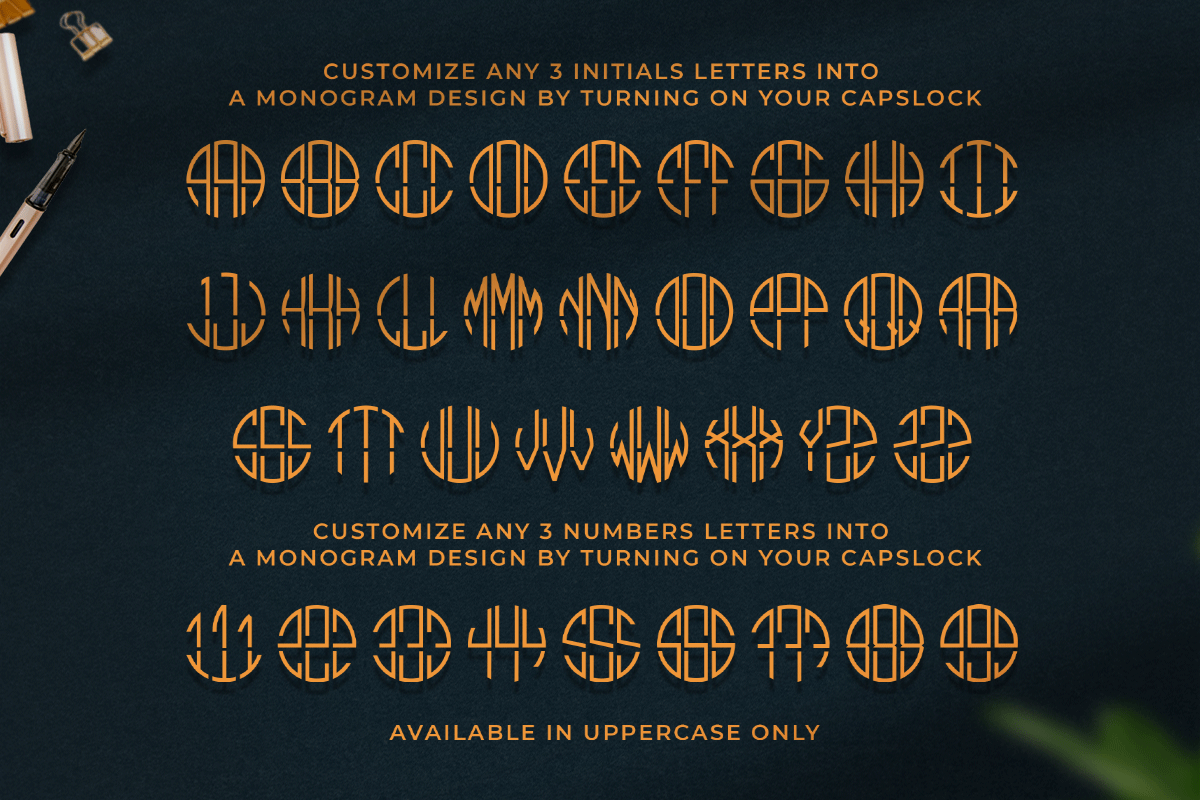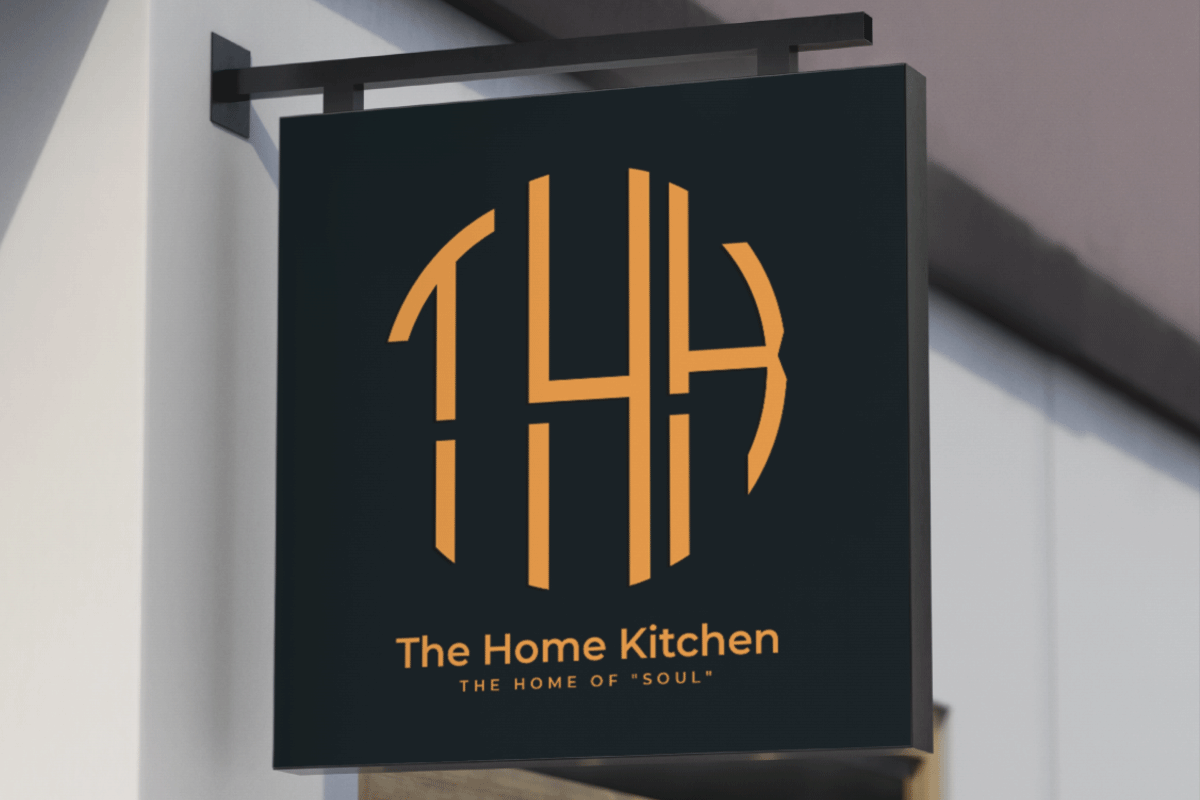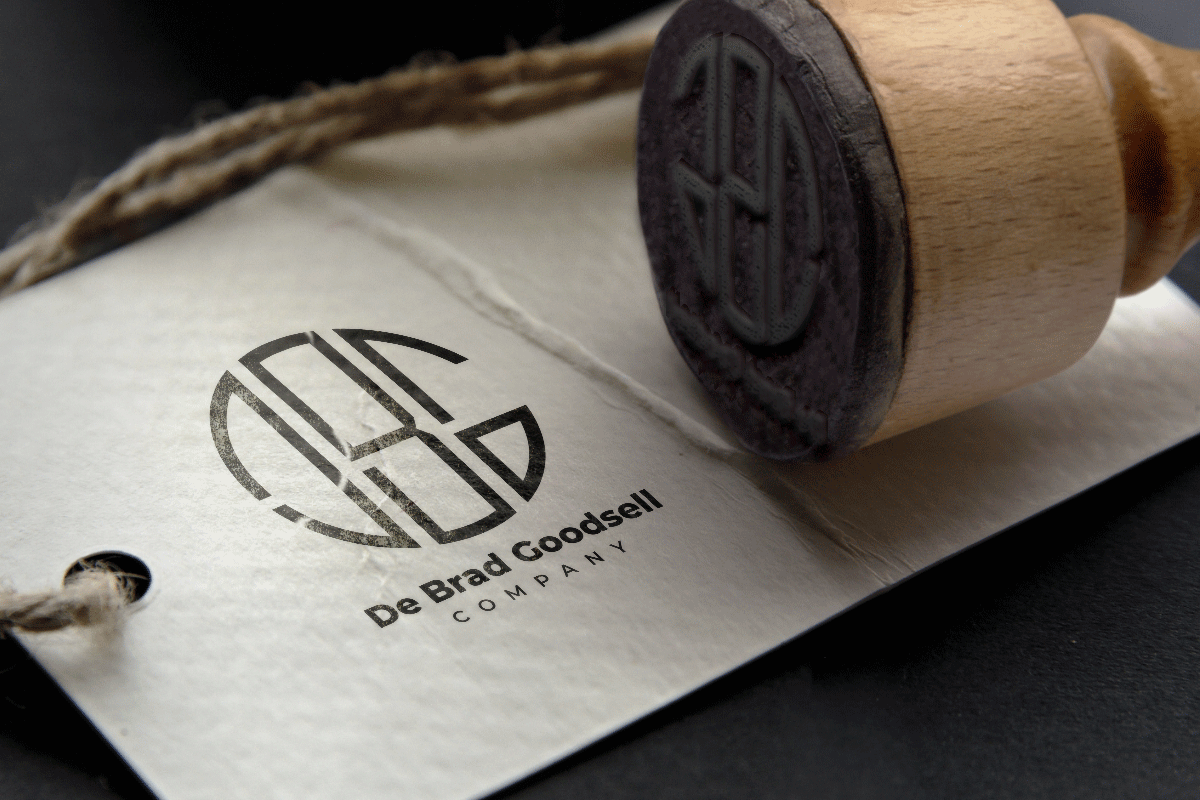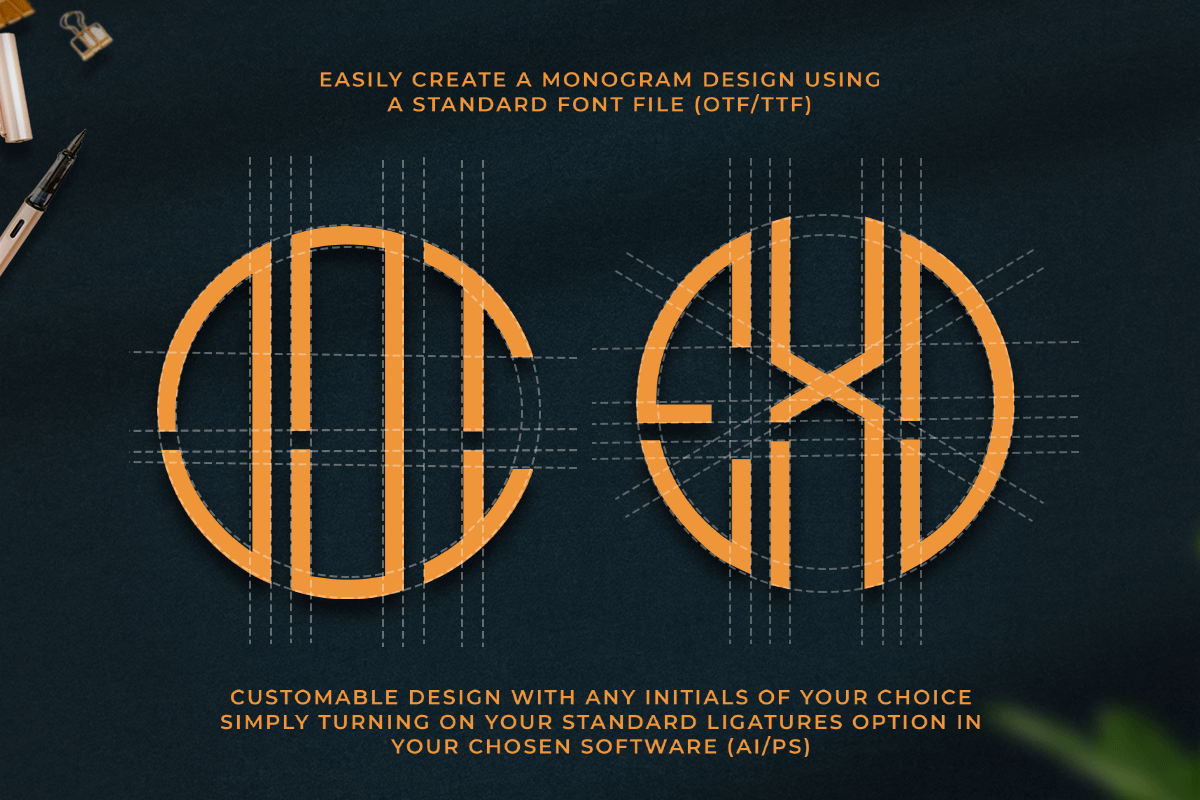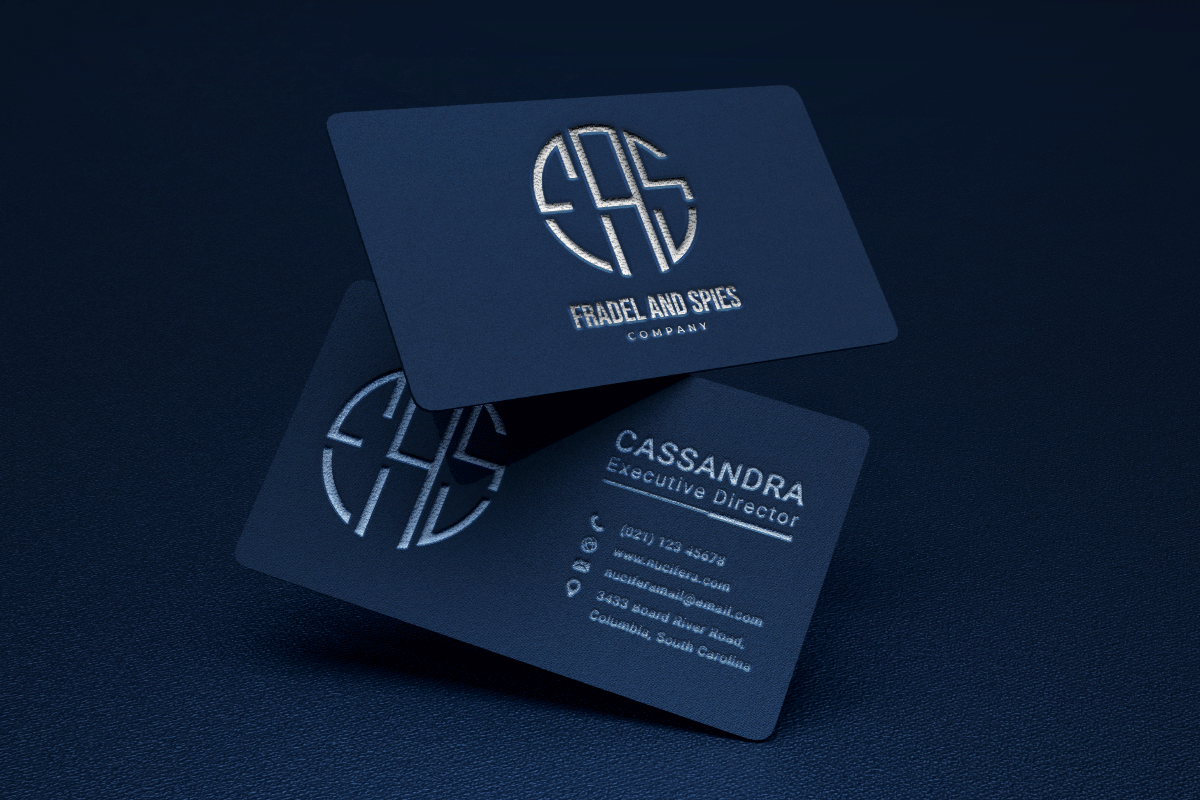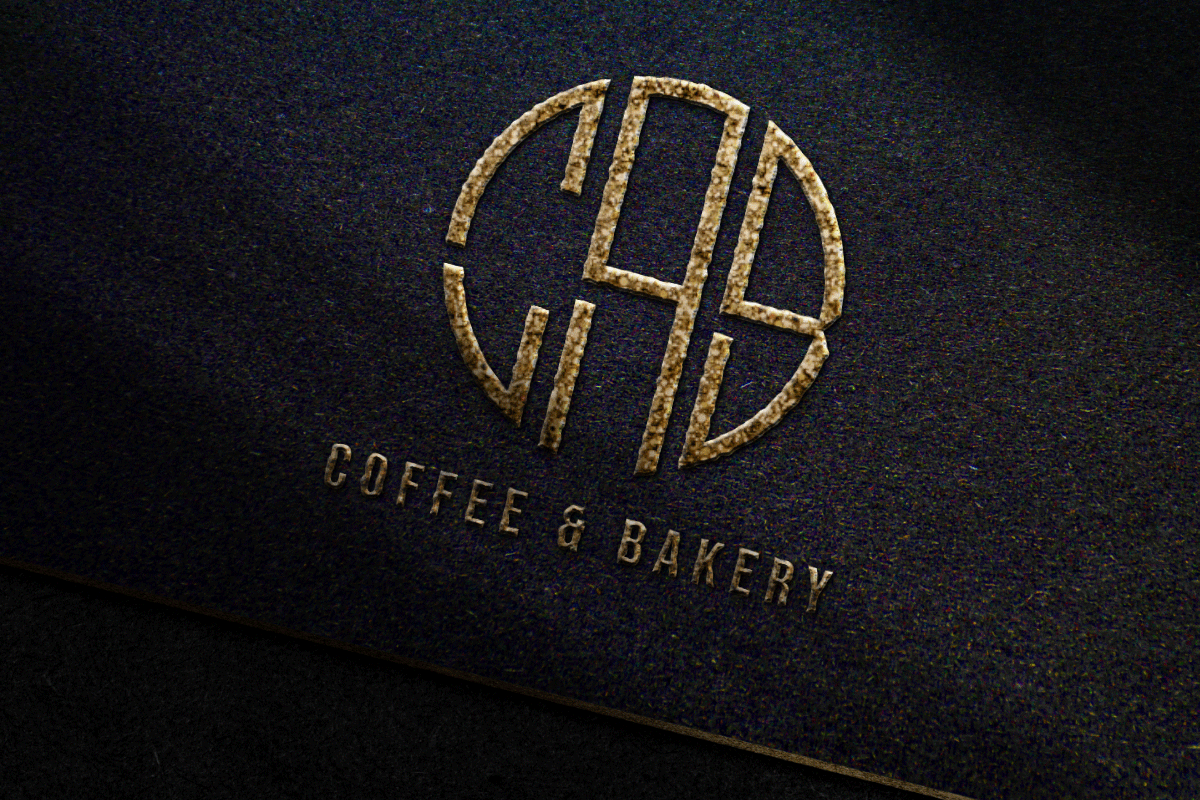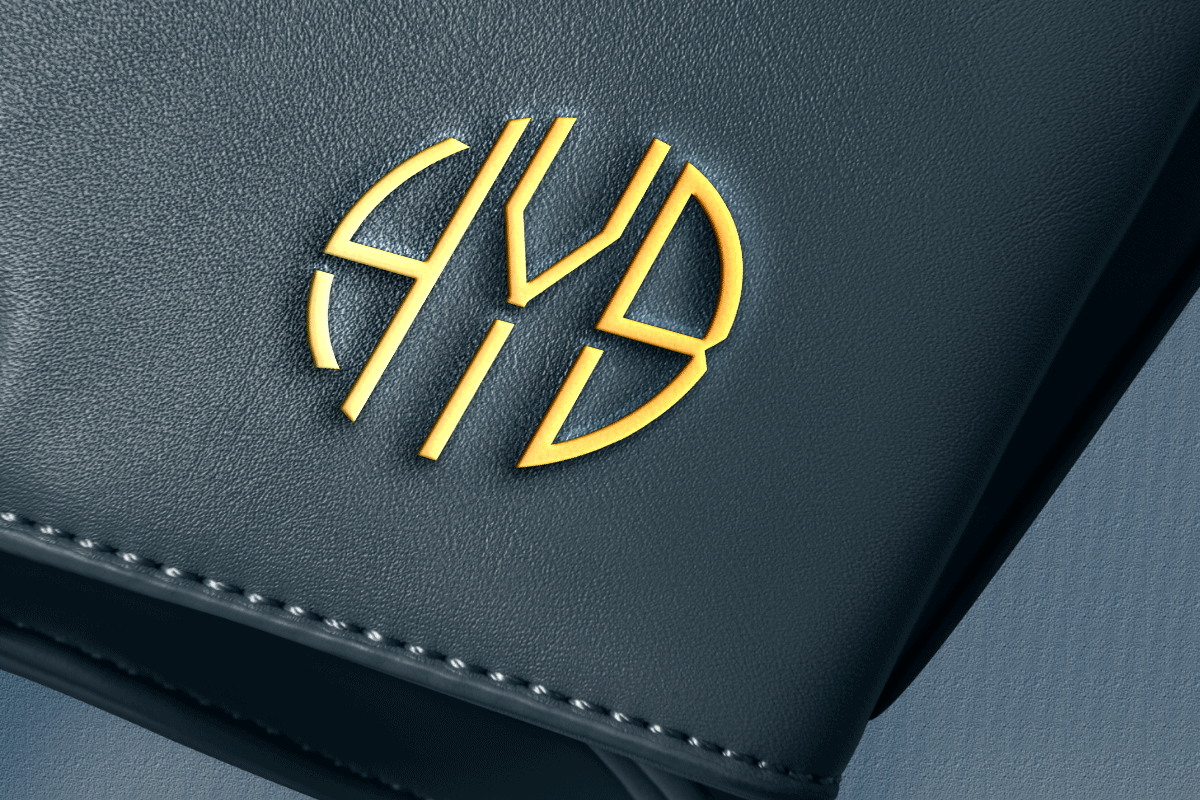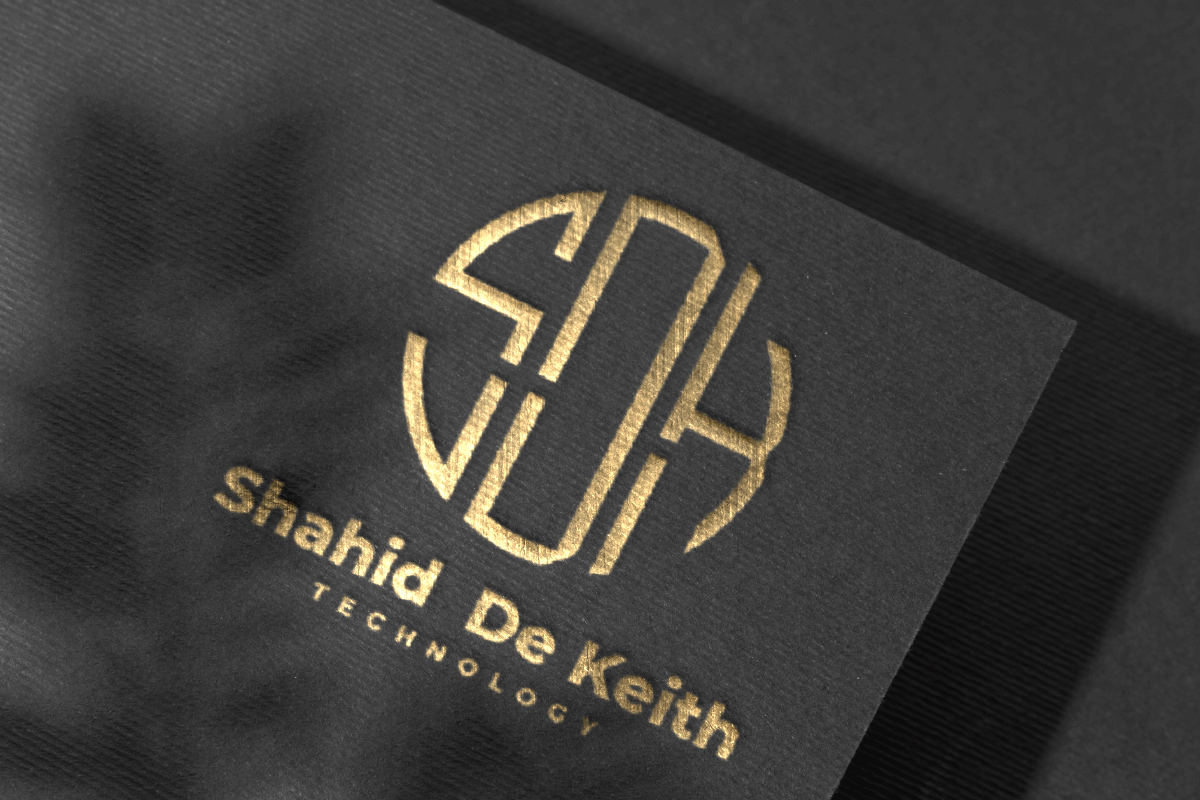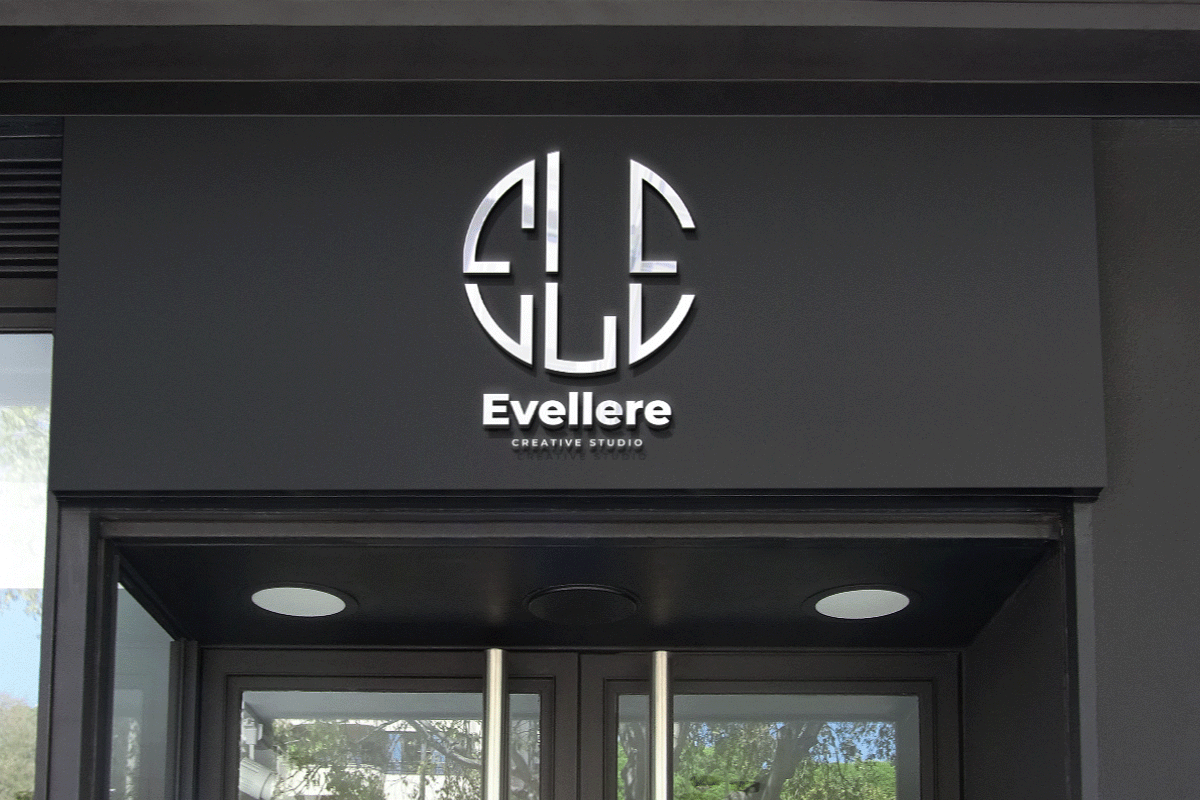
Modern Monogram Circle Font Kong Font is here to bring you a new variety of fonts every day. We are happy to provide unique and attractive font types for you to practice in digital and print forms. In addition, we have provided a variety of different file types according to your order. Modern Monogram Circle Font is a font that was created to enliven the Decorative font variety. This cube font is a combination of three letters that form a circle. You can choose letters that will later be formed into a cub. This font can even be used as a logo. From this explanation, friends may find other features of this font that are no less unique. Even though it has something different, this font is classified as a legible font. It can be printed in small or large font sizes and is still legible. The uniqueness font raises will be in vain if it is not used with the appropriate theme, object, and font size. We can see that Modern Monogram Circle Font is the best font to use for logos, T-shirts, Jacket, etc. Other things combined with this font are stickers, banners, and posters. The impression of mystery that is raised by this font can make anyone fascinated when they see it. Our monogram fonts collection is compatible for use as Figma fonts, Canva fonts, Freepik Fonts, and Adobe Fonts. They also work as Windows Fonts and Apple Fonts. For your social media needs, you can use and install fonts in our Blackletter font collection to use as Instagram Fonts, Facebook Fonts, and Twitter Fonts.